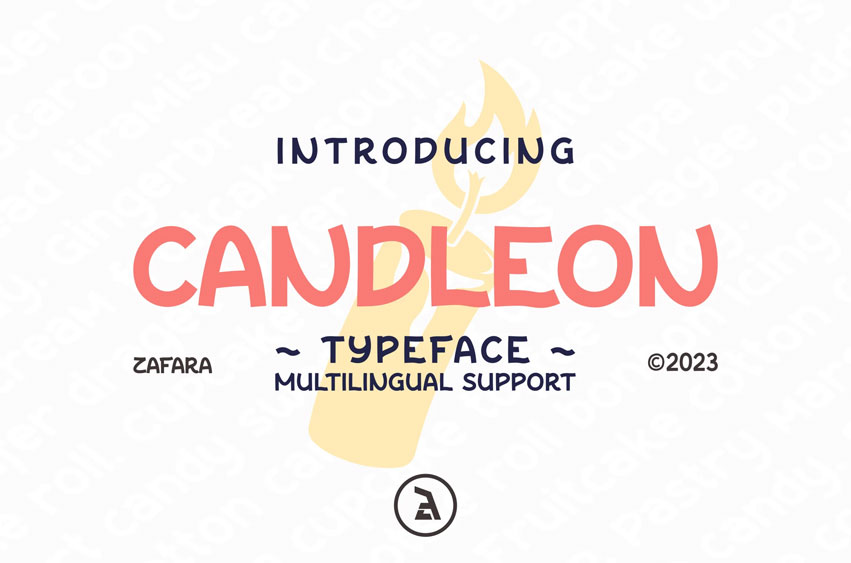
CandleOn Font
CandleOn Font Typeface is suitable for flyers, posters, novels, letterheads, or any design requirements you want to be awesome.
It will certainly amaze your readers.